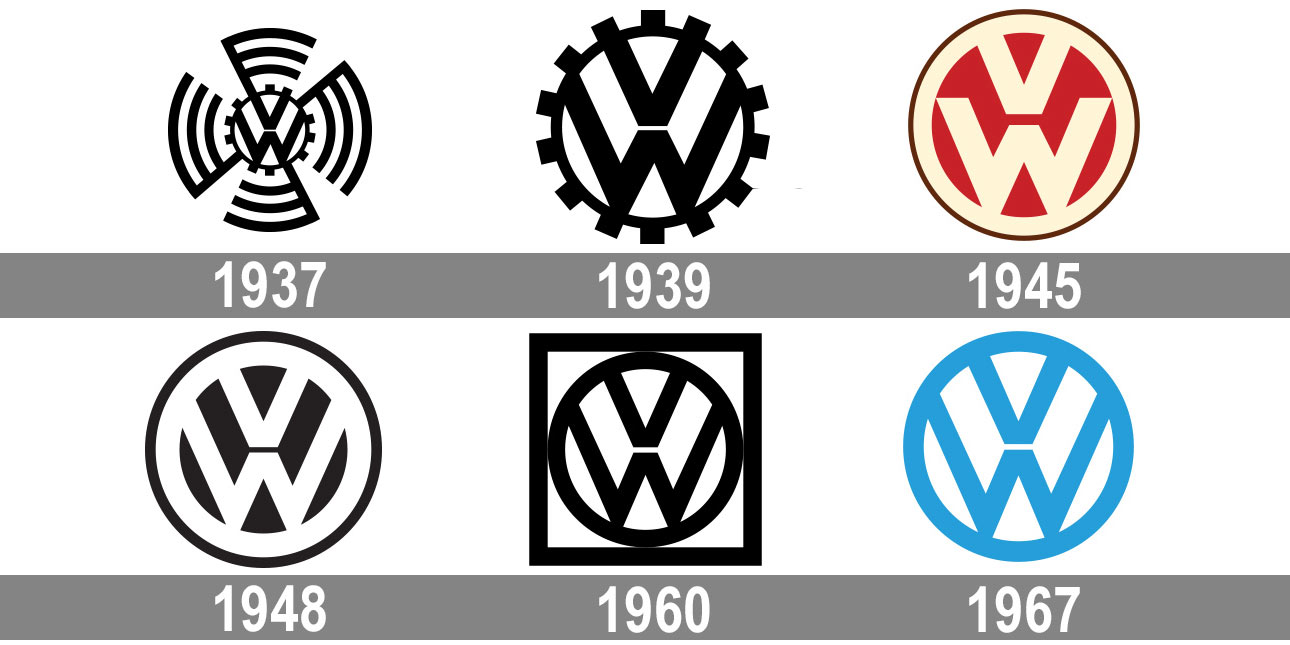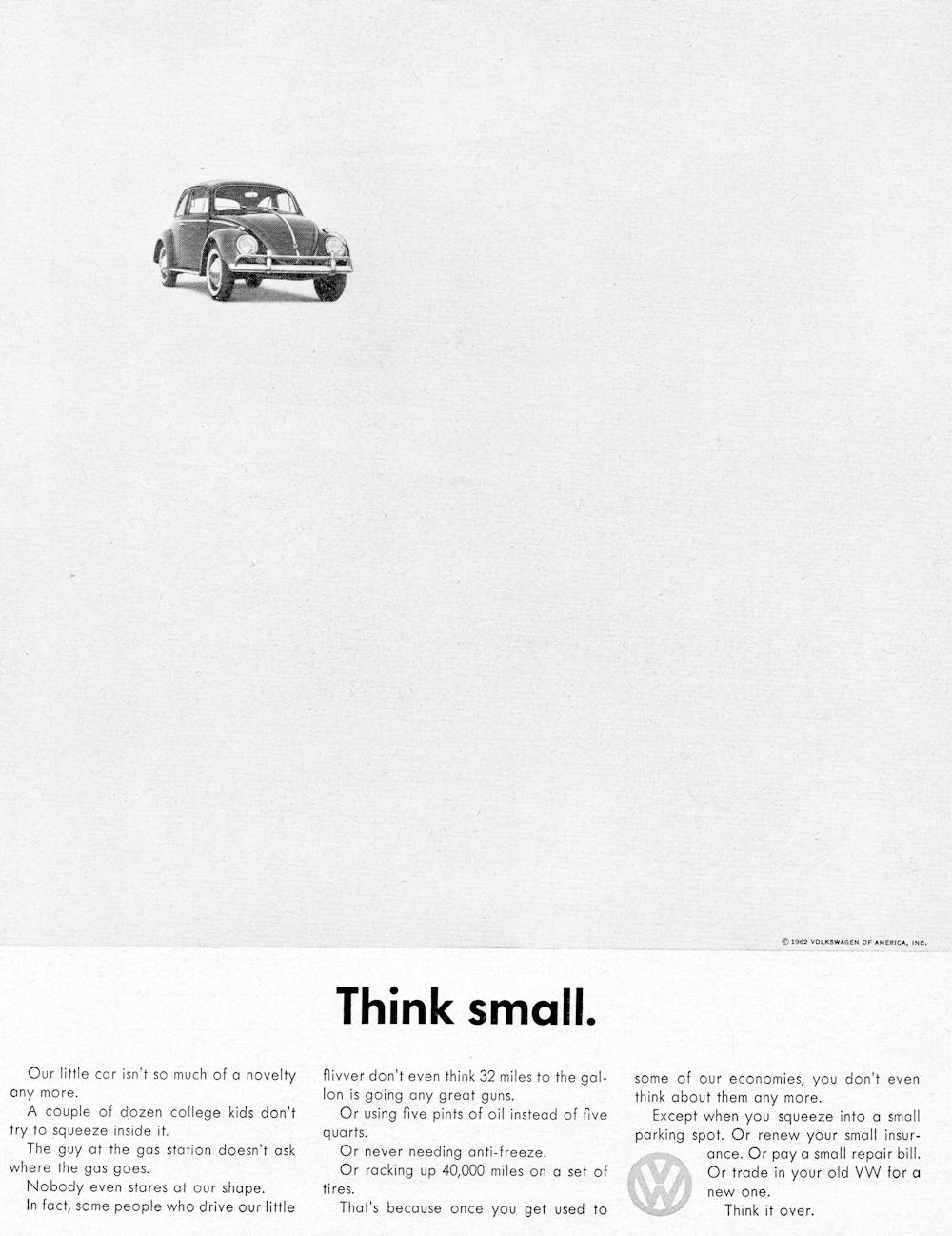
Old Volkswagen Font
Old volkswagen font. The font dafont involves uppercase and lowercase alternates as good as a bonus Volkswagen font with multilingual help They can be used to convey exact messages, moods, and emotions Utilizing a double line procedure, Josip Kelava wanted to create he possess artwork Deco variety font alphabet that represented this generation. This aesthetic display font is designed by TSV Creative and will remind you of 80’ era At that time people mostly wore vibrant color clothes and also colorful posters were used in discos This classic font will bring you back to that era You can use this font for your modern and classic designs such as branding, logos, shirts, and hoodies. The font is clean, simple, friendly, and it was amazingly alternative compared to the elaborate fonts used by the Americans, British, French, and Italians It fit perfectly with Volkswagen's voice as a brand here in America and it's all part of VW's resounding success as a brand Volkswagen Font dafontcom Volkswagen by Didik Pratikno.
The freewheeling typeface of the Corvette is just a perfect example from a great pool of old American car fonts Photo Credit Raphael Orlove Advertisement 6) 911 Porsche This is Volkswagen. Examples of fonts in use tagged with “Volkswagen” Journal der Autostadt, Issue 5/13 13 Sabina Keric;. Bahnschrift is a brand new digitization of the famous DIN 1451 character design standard and was released as a variable font for Windows in 17 DIN 1451 is a standardization for letterforms designs created by the German standards body Deutsches Institut für Normung (German Institute for Standardization) in 1931, and was intended for use on.
Volkswagen has unveiled a new brand design and logo at the IAA motor show in Frankfurt Debuting along with the fully electric ID3 hatchback, Wolfsburg is calling this the “New Volkswagen. The only thing different about the Volkswagen ad layout was its From a 1968 interview with designer Helmut Krone Krone Volkswagen of America ads, 1960–68 Fonts In Use. Hi, I would like to know if anyone knows what font was used for the lettering on the back of the classic VW Beetles Or if you know about a site that I can download them Thanks Answer Save 2 Answers Relevance bill f.
Initially designed for the corporate typeface for Volkswagen in 1979, this font got to be owned by Adobe It’s still used in advertising, precisely for its simple, corporate style, yet so powerful It resembles the font Futura, but it has, as the name suggests, more rounded shapes, which can be considered friendlier by most people. Audi Type Extended, the font style for headlines, is defined by its font width of 130 If necessary, this width can be reduced to a minimum of 1 The type weight (Normal to Bold) can be freely selected to match the statement. Download VW Head font (4 styles) VW Head VWHeadBoldotf 87 Kb VW Head VWHeadRegularotf 86 Kb VW Text VWTextBoldotf 85 Kb VW Text VWTextRegularotf 81 Kb Volkswagen Font Family Volkswagen is a big and famous car company Among them is the typeface of the Volkswagen brand, with the stylized VW Now befon.
The Futura is their corporate font used for their marketing literature, etc And whoever thought that VAG Rounded is a font used by Volkswagen is smoking some serious crack well, I suppose I should retract my statement Perhaps they've used VAG Rounded in the past but I've never seen them use it to this day. For font nerds, the previous typeface was called VW Utopia, and it’s being replaced by Volkswagen Text;. Close up on Volkswagen old vintage car and logo Sleza, Poland, August 15, 15 Close up on Volkswagen old vintage car and logo on Motorclassic show on August Volkswagen logo in dirt Car brand Volkswagen logo covered in muddy water and dirt, ideal for coverage of VW's recently announced rally activities Car in image.
Futura was designed by Paul Renner in the 19s in Germany and since its birth, Futura has become the benchmark of geometric sans for over 80 years with its remarkable shapes This modern typeface has influenced many other designers and is being used extensively in business signage and advertising up to this day. Download VolkswagenSerialBold font free in ttf format for Windows and Mac We have thousands of free fonts available for you. AnrietteC asked in Cars & Transportation Car Makes Volkswagen · 1 decade ago VW Beetle Font?.
VW Head is a custom typeface designed by HvD font for Volkswagen AG The font was Designed by Hannes von Döhren, Livius Dietzel in 15 Snap Inc Caslon This font is not used for " Turkish Airline (old) Proxima Nova This font is not used for "Turkish Airline (old)", but this is the font that the community have designed based on the logo. Click to find the best 1 free fonts in the Audi Mercedes Volkswagen style Every font is free to download!. The "Fonts Collection" section is the place where you can browse, filter, custom preview and.